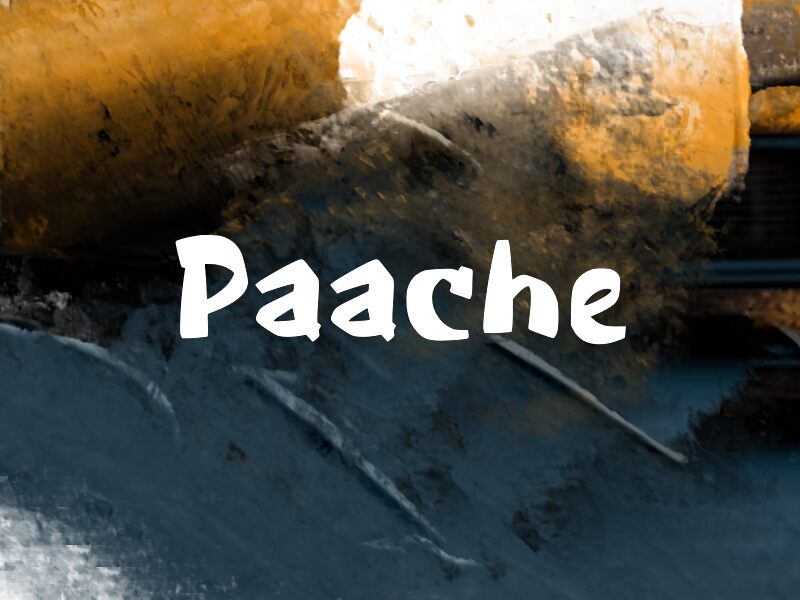
Paache font by wep is a free brush font defined by its purely organic look. The typeface makes use of light strokes and gentle connections which together give off an informal vibe. The font follows a friendly and playful approach, alternating from narrow pointy characters to more open and heavily rounded ones. A charming nature characterizes it, making it visually expressive and pleasant to the reader’s eye.
Paache is great for headlines and posters, especially if you’re looking to add a whimsical touch to your project. It can be used in ebook covers, social media campaigns, newsletters, and even magazines. Similarly, the typeface’s informal nature makes it suitable for DIY arts & crafts-related projects, handwritten quotes, and labels.
Paache is a stylish and modern free font that adds a touch of elegance to any project. Designed with versatility in mind, it is suitable for a wide range of applications, from branding and logo design to websites and print materials. With its unique character shapes and balanced proportions, Paache ensures legibility while maintaining a visually appealing aesthetic.